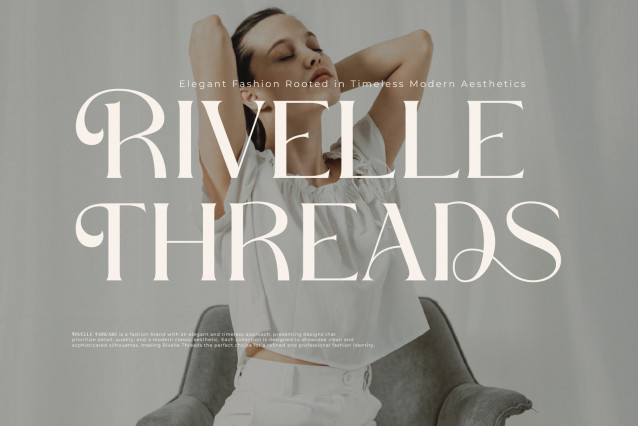
Becaose Font
Becaose Font the elegant, beautiful, and modern Serif. With its modern and minimalist look, Becaose brings a luxurious, classy, ​​and clean style to your projects such as websites, modern logos, brand identities, social media quotes, wedding stationery, magazines, and more!
Becaose features unique and classy capital letters A to Z and also comes with unique alternates making Becaose a beautiful font that can be customized for various projects and jobs you want.
Becaose is perfect for: logos, brands, wedding invitations, business cards, greeting cards, posters, magazines, social media, agenda prints, and websites.
FEATURE:
* Uppercase and lowercase letters
* Multilingual Characters
* Numbers & punctuation
* Alternative styles and ligatures (on some fonts)